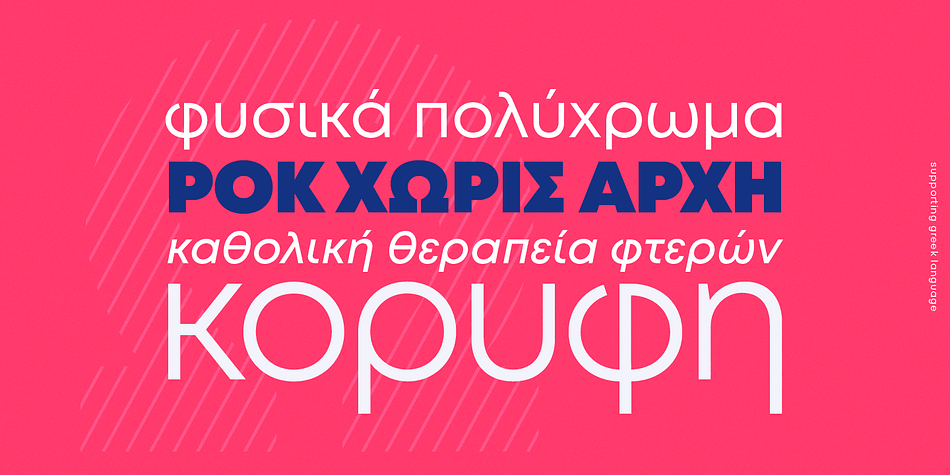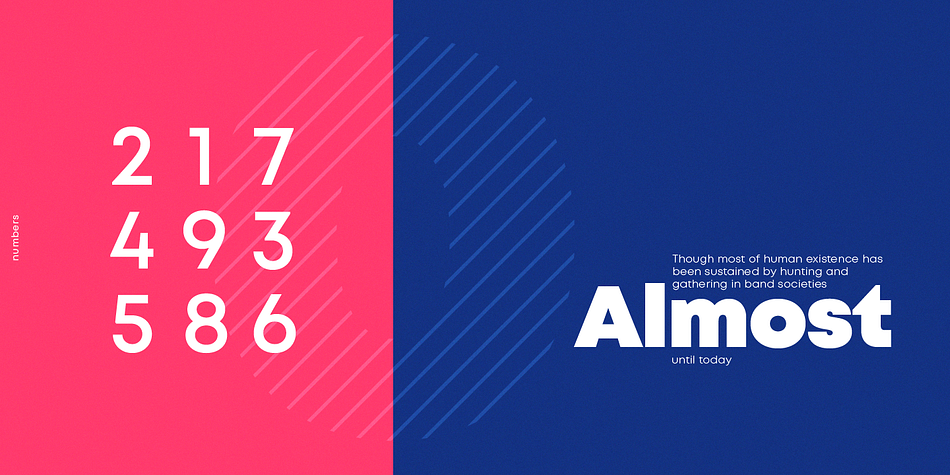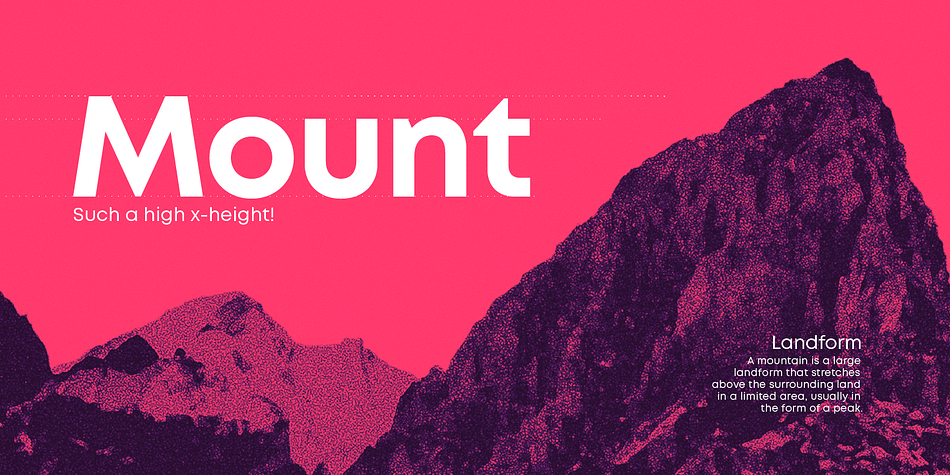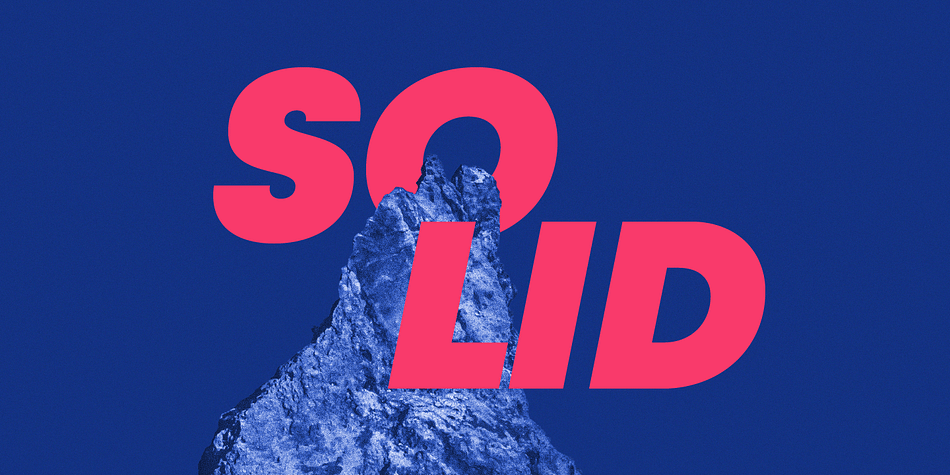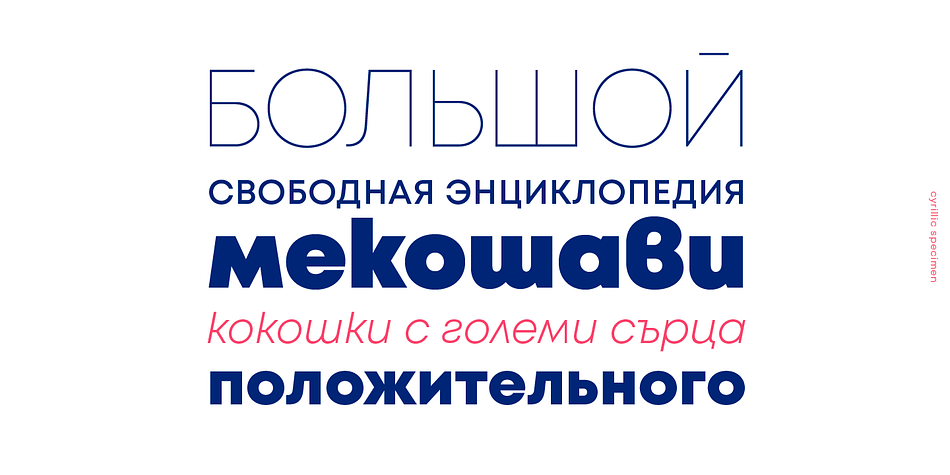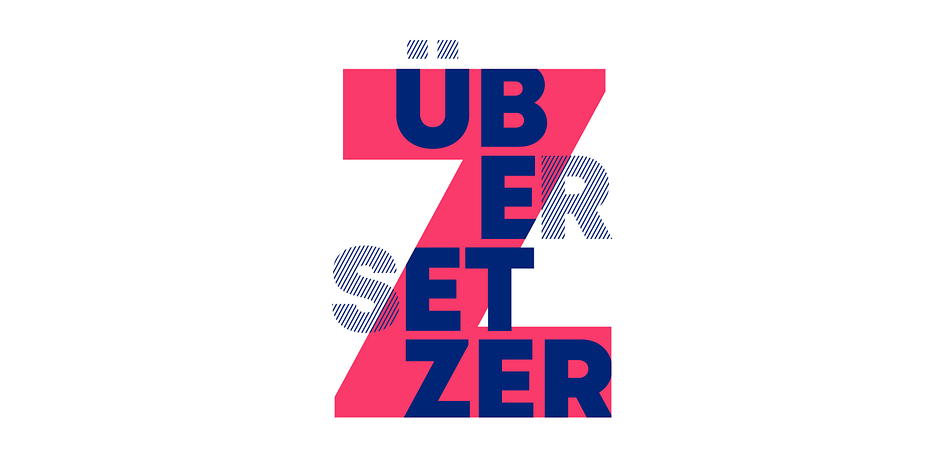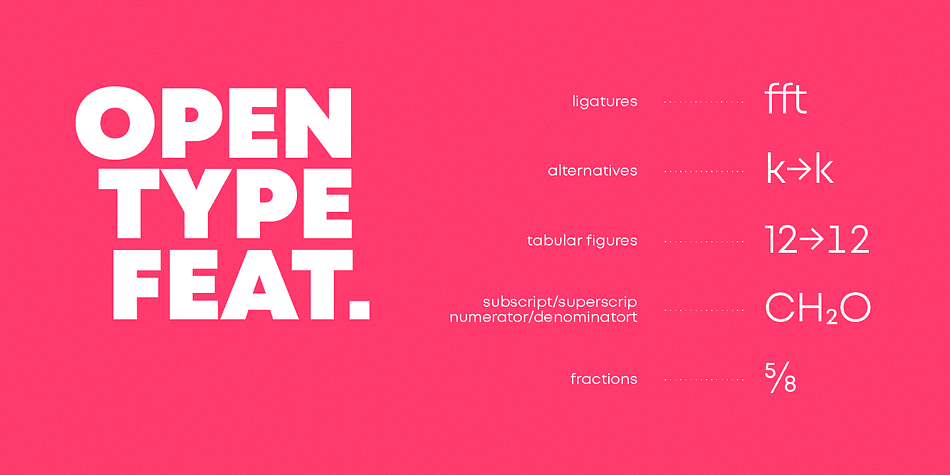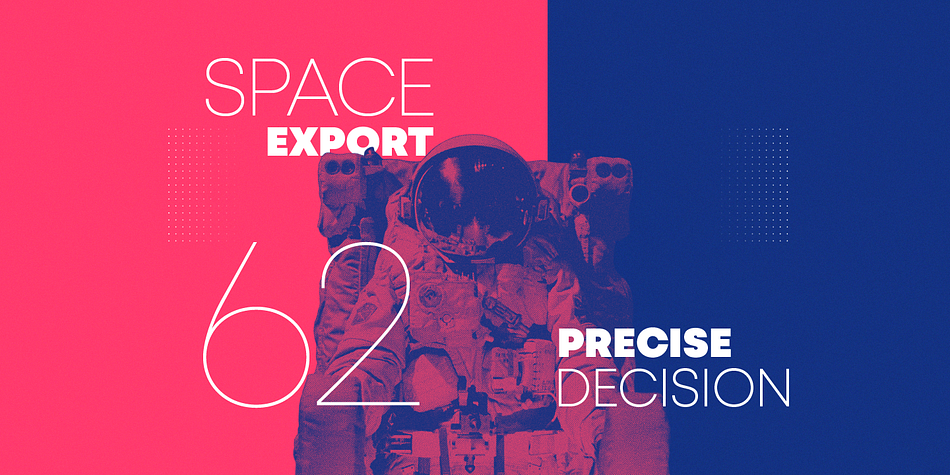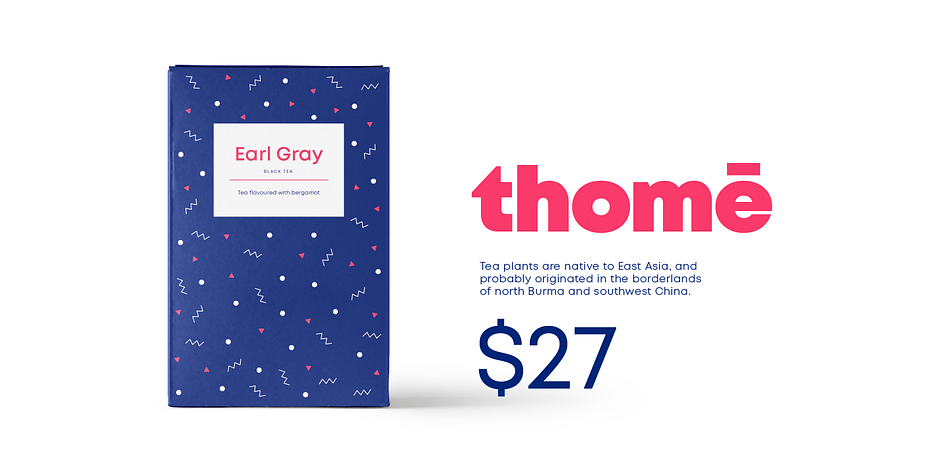
Designed by Mirela Belova and Svetoslav Simov, Mont is a sans serif font family. This typeface has twenty styles and was published by Fontfabric.
Mont is a geometric sans serif consisting of 10 weights ranging from Hairline to Black with matching italics. It supports Extended Latin, Cyrillic and Greek — more than 130 languages all together.
The balanced characteristic of Mont with unique details, such as the pointed “t” and the prominent x-height makes it perfect for strong headlines and outstanding logos, but also suitable for long text.
Mont comes with a multiple range of OpenType features — including tabular figures, advanced typographic features such as ligatures, fractions, case-sensitive forms, superscripts, subscripts etc. The typeface’s versatility and merits make it easy to confront any graphic design challenge — web, print, motion graphics etc.
Up with Mont to the top and beyond!
Some features:
• 744 glyphs in 20 styles;
• Extended Latin, Cyrillic and Greek;
• Perfect for headlines and logos;
• Prominent x-height;
• Distinctive pointed triangular bracketed “t”;
• Coverage of multiple OpenType features;
• Suitable for web, print, motion graphics etc.